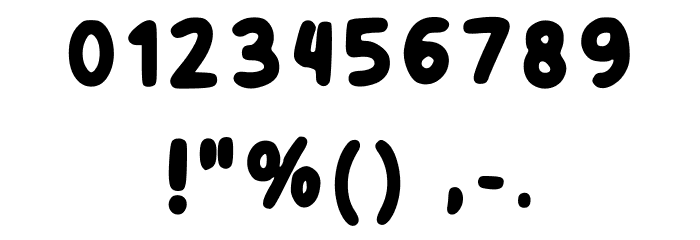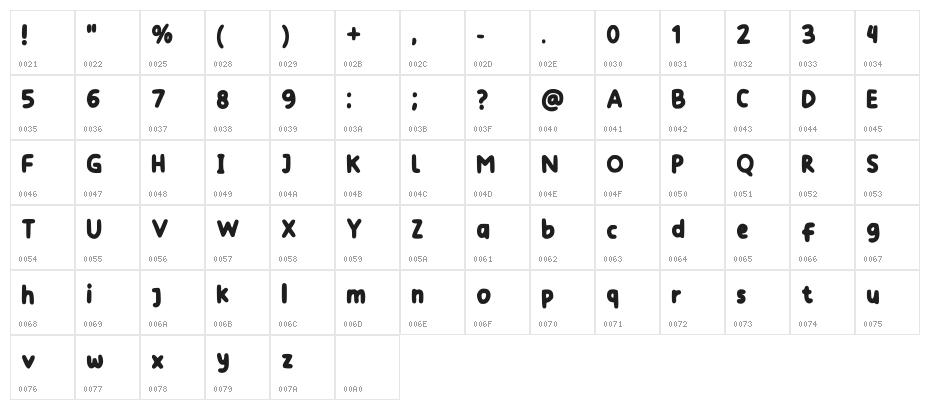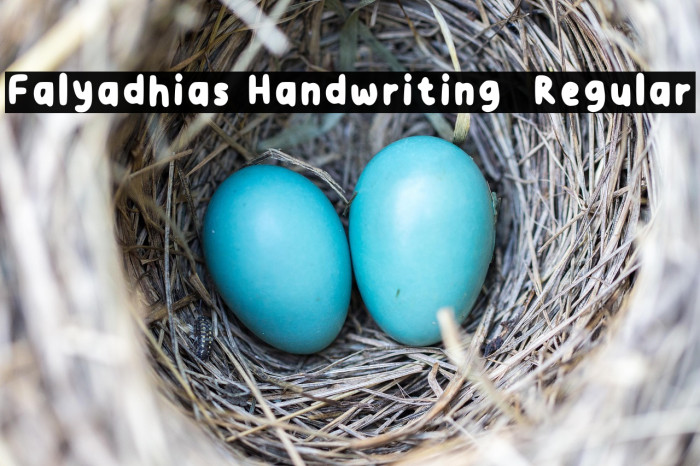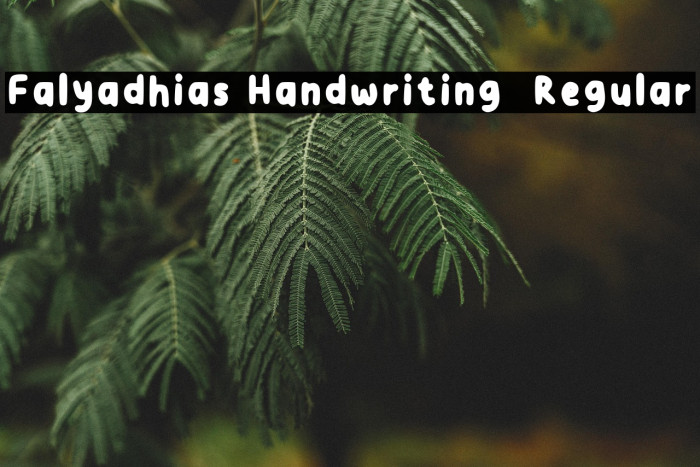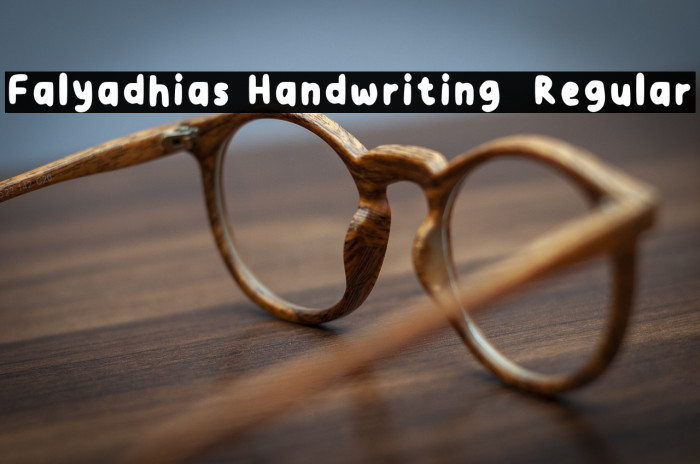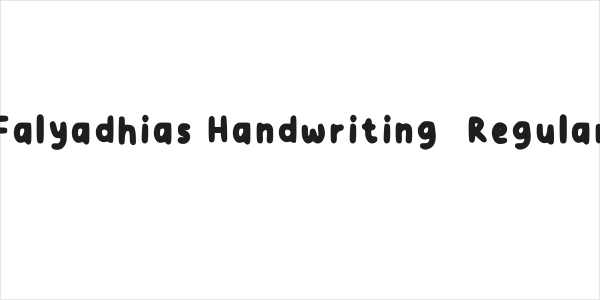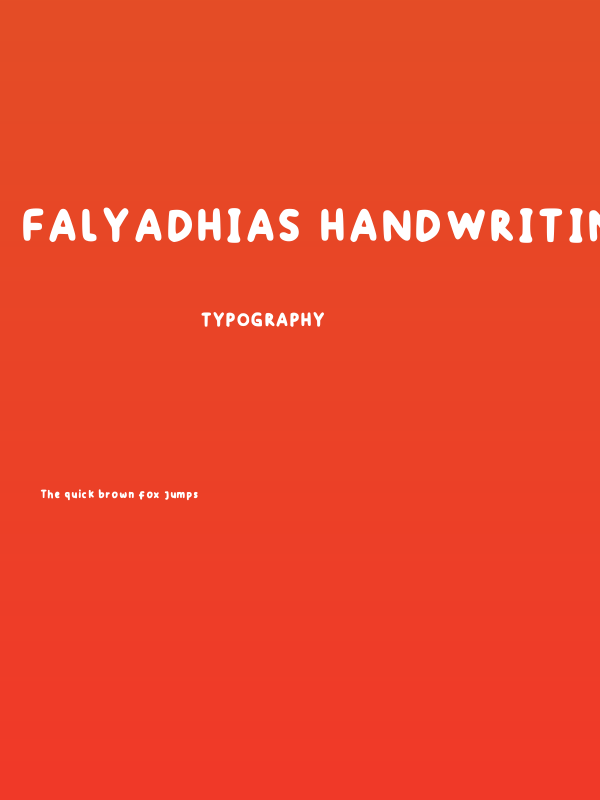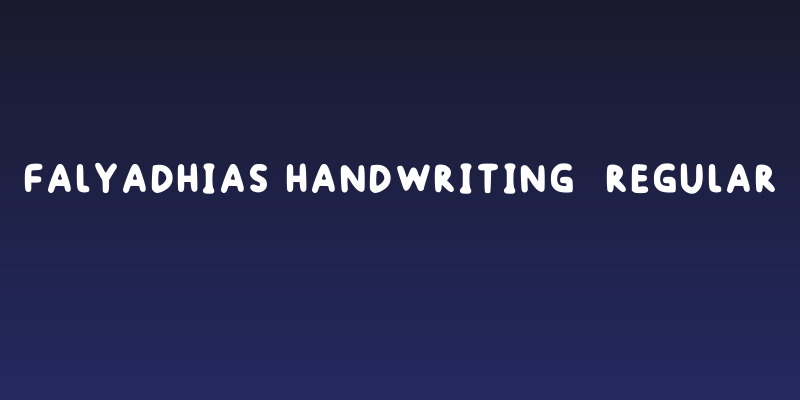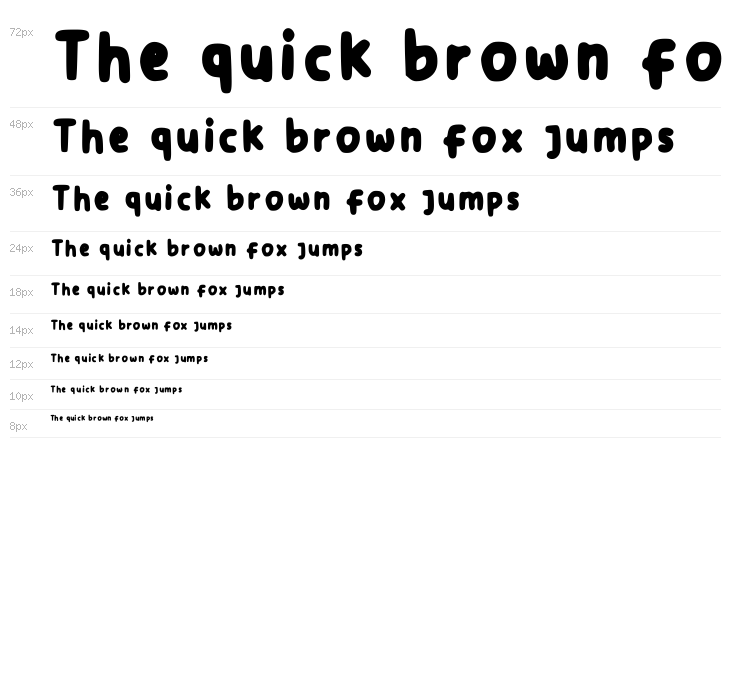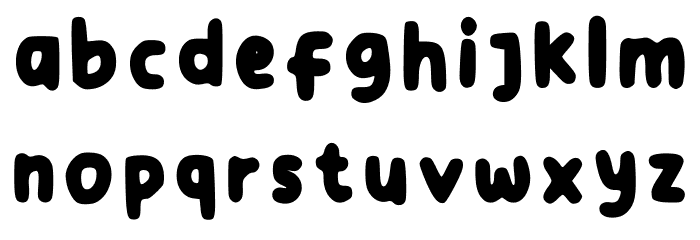
Falyadhias Handwriting Regular Font
Falyadhias Handwriting Regular Description
This font features a playful and casual handwritten style, characterized by its rounded and slightly irregular letterforms. The strokes are bold and consistent, giving it a friendly and approachable appearance. The uppercase and lowercase letters maintain a uniformity in style, while the numerals and special characters complement the overall design. Its informal nature makes it ideal for projects that require a personal touch or a sense of whimsy. The font's simplicity and clarity ensure readability, making it versatile for various creative applications.
| Proposed Projects | Ideal for greeting cards, children's books, casual branding, and social media graphics. |